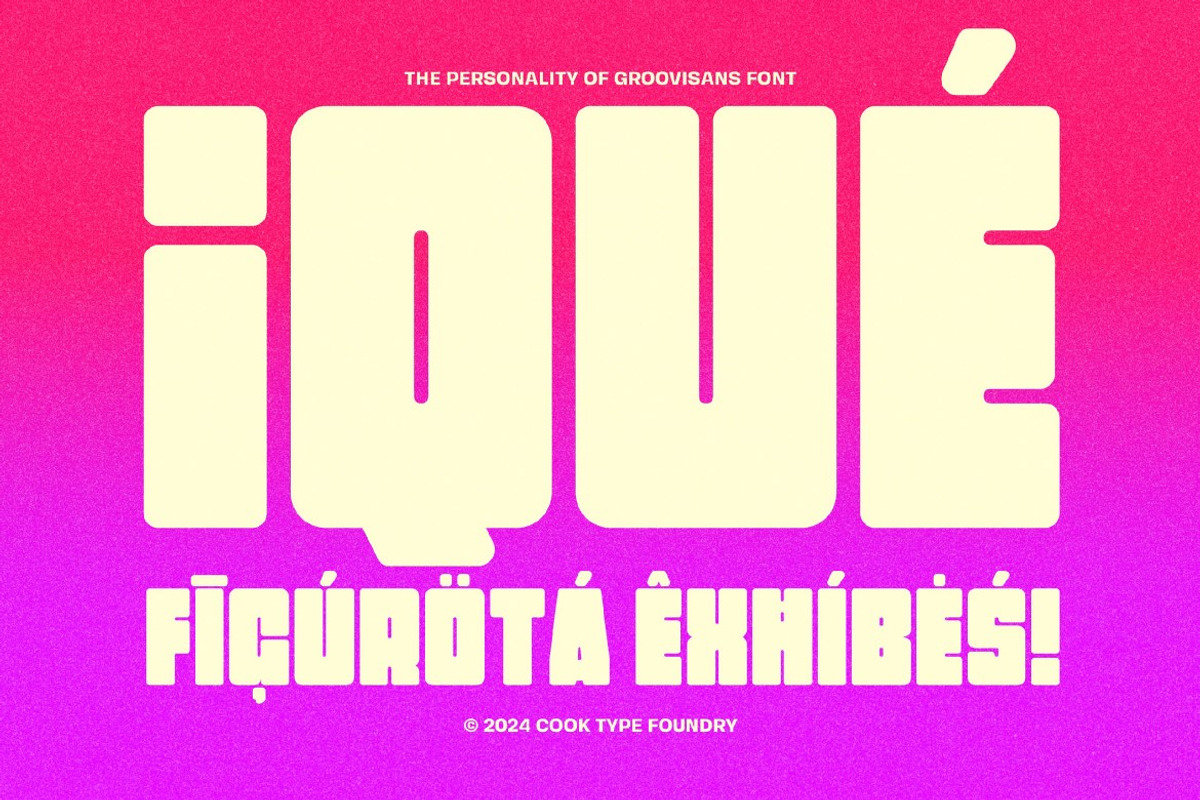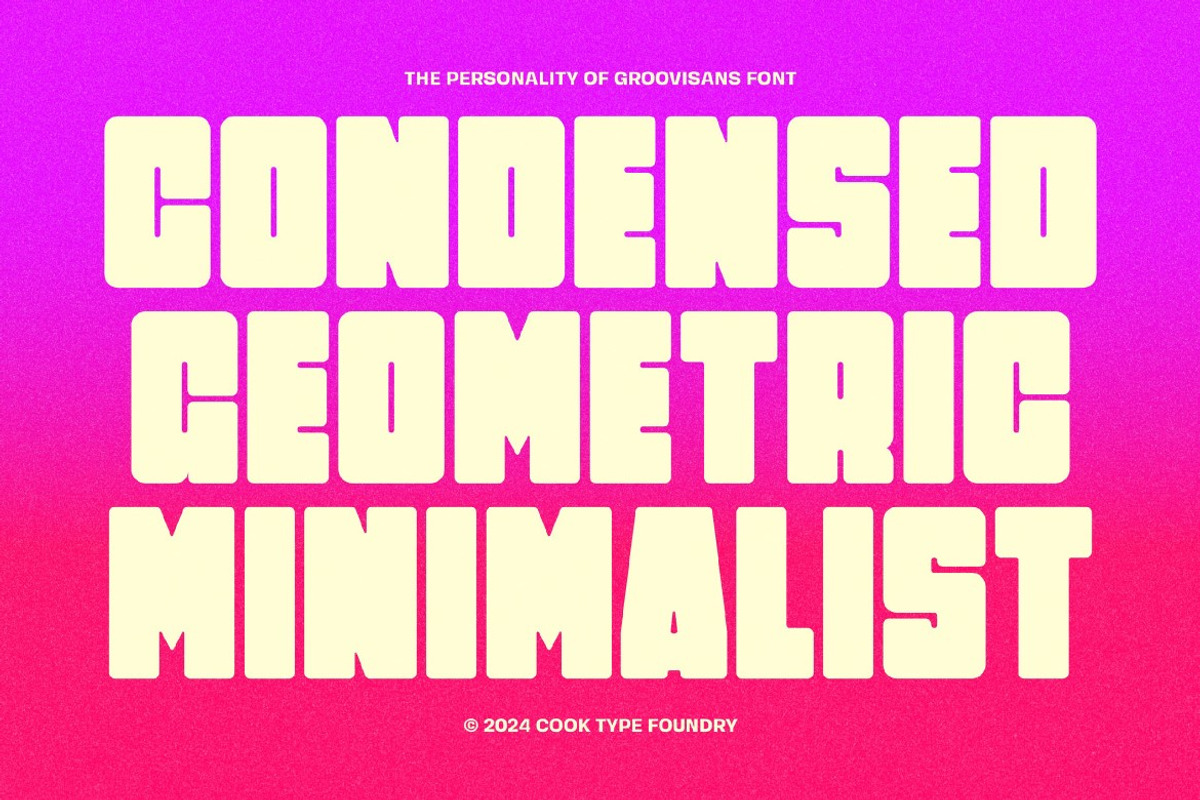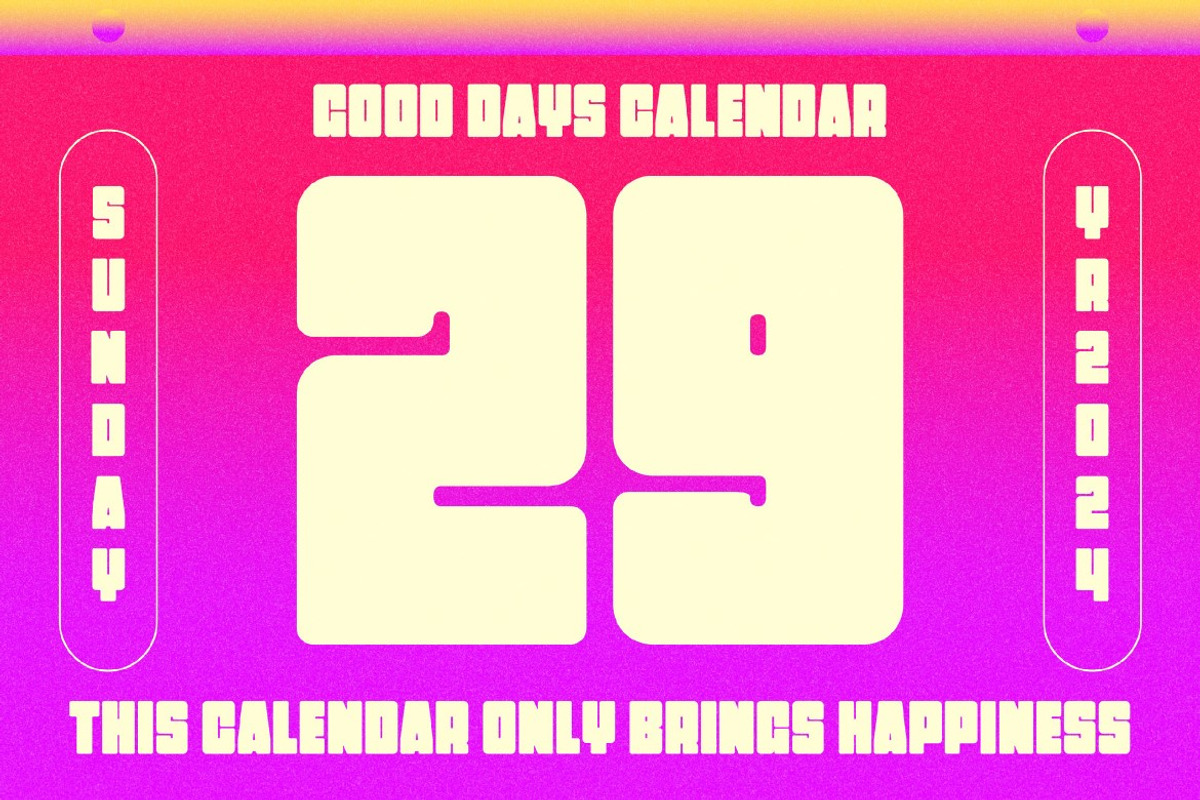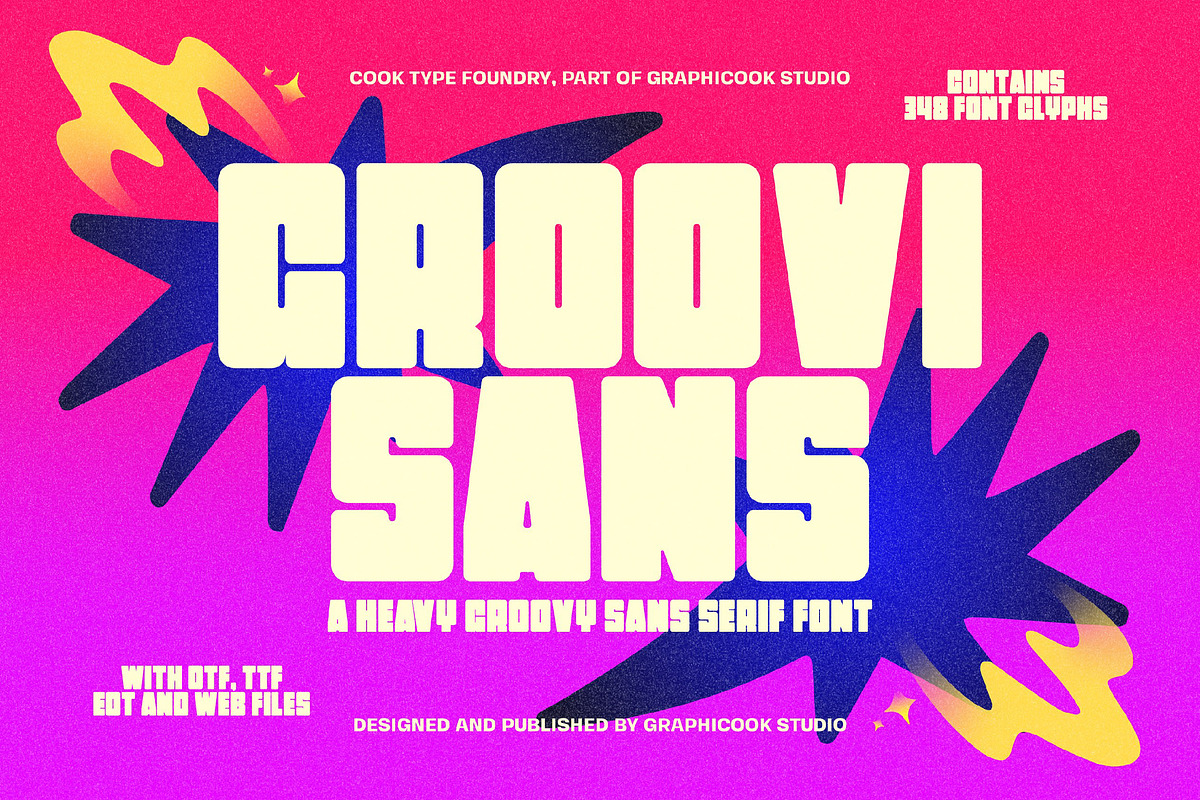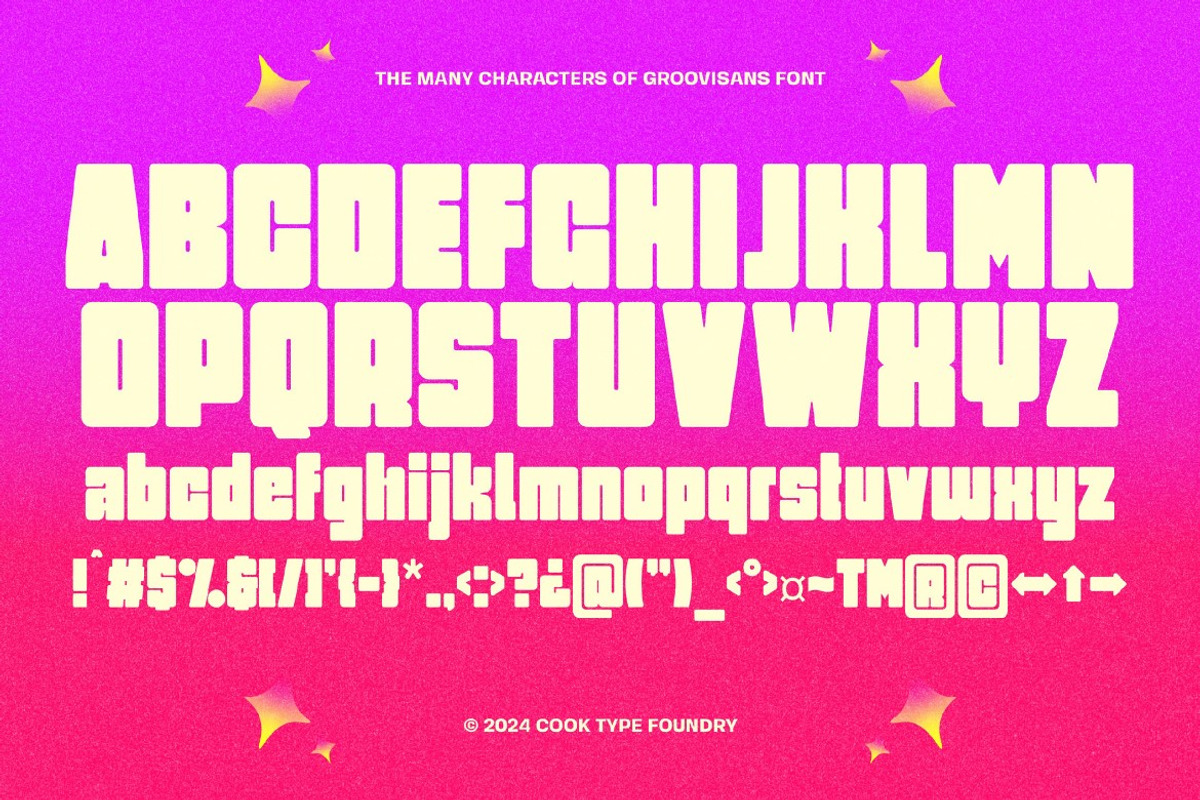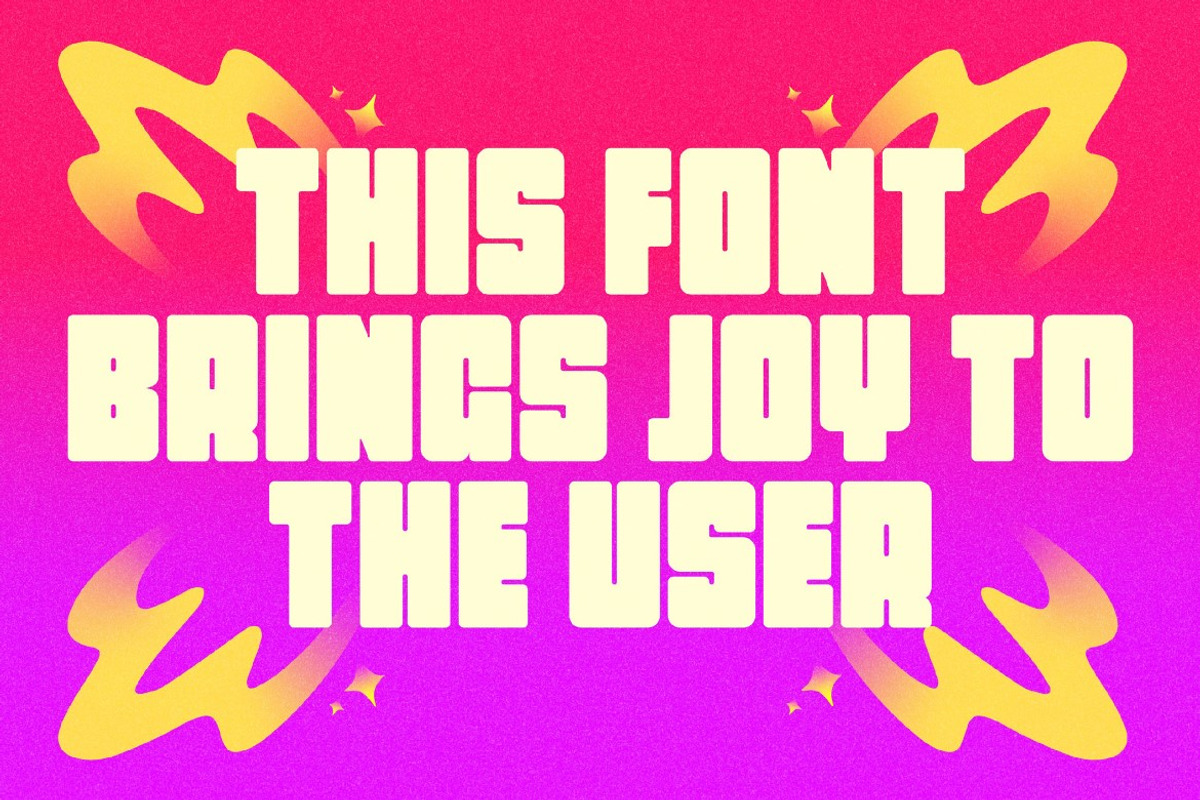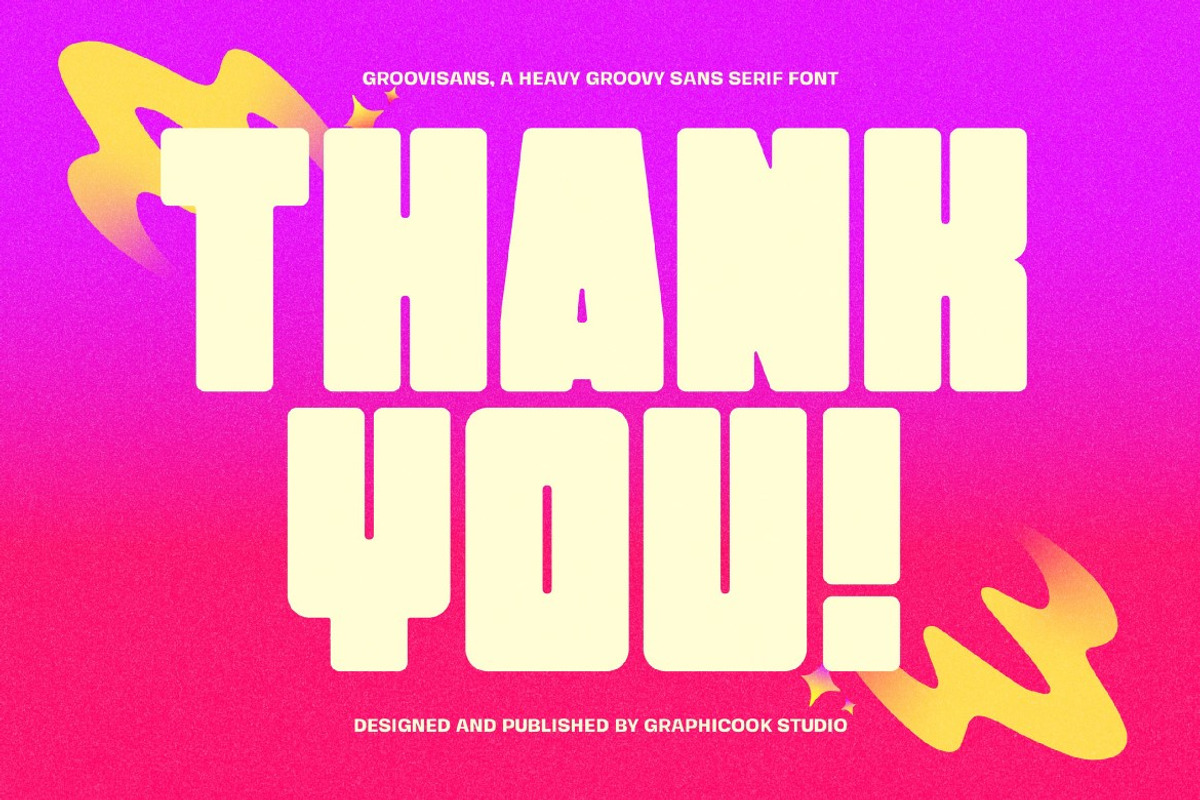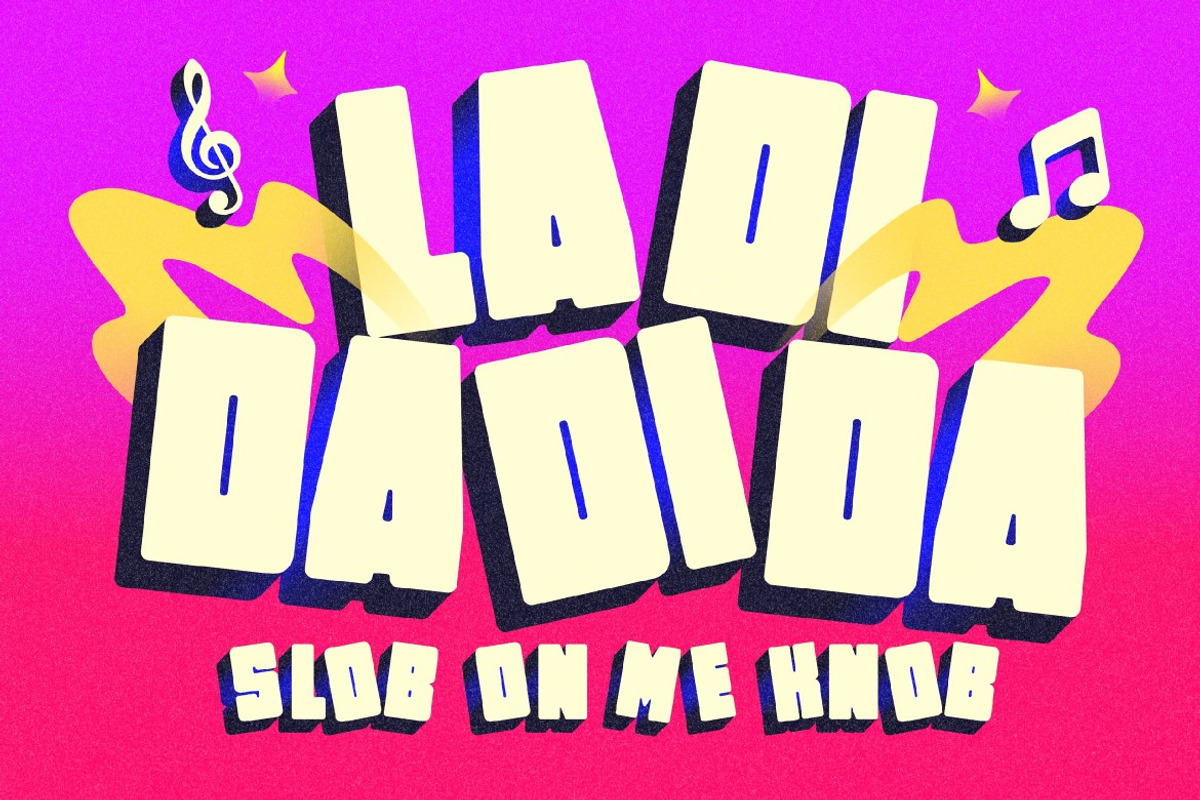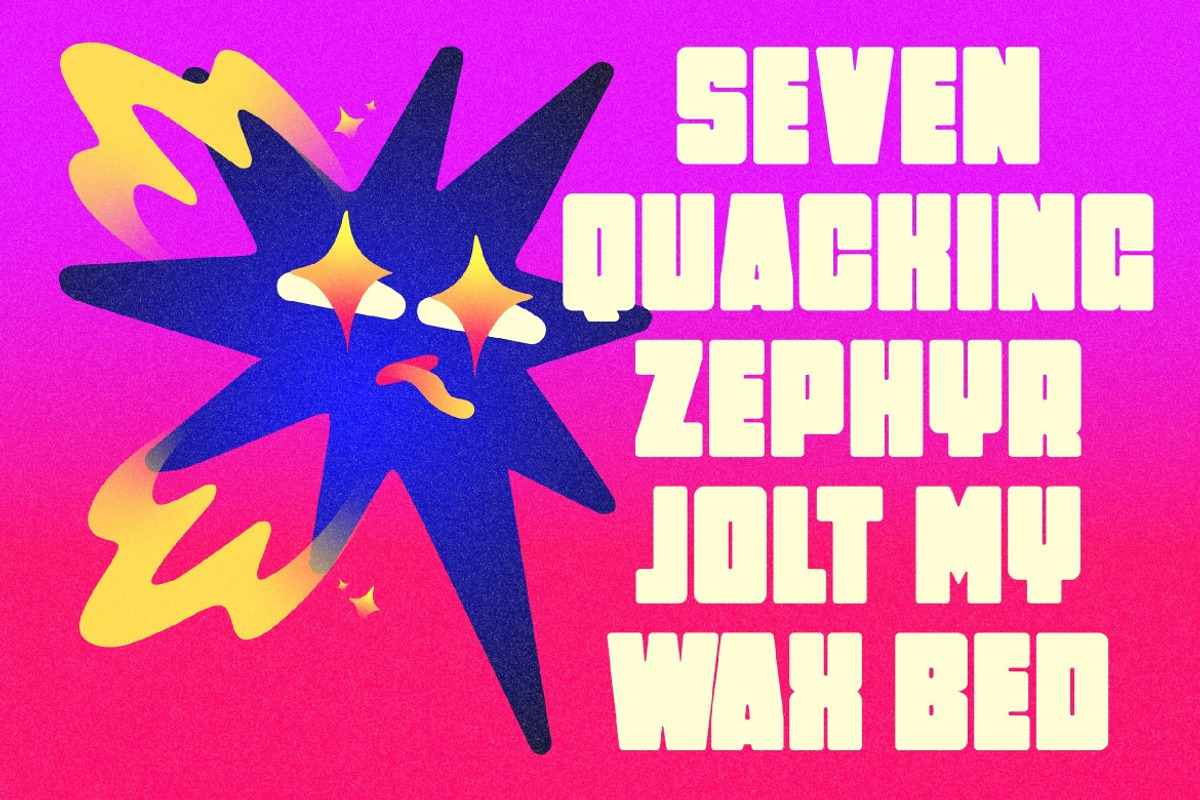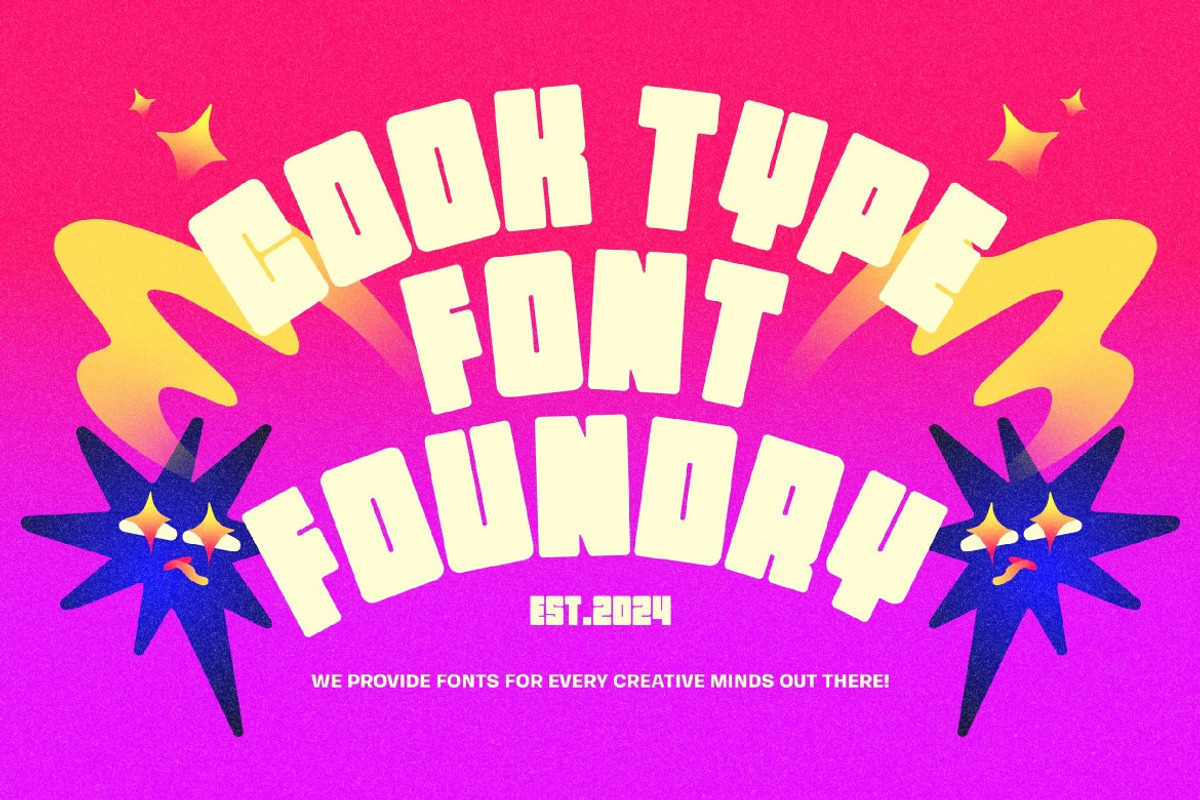
Groovisans
Groovisans blends groovy style with a rounded sans serif design. Perfect for event branding, editorial pieces, magazines, and more.
Groovisans is perfect for headlines, logotypes, magazines, packaging, quotes, movies, games, cover albums, book covers, and flyers, it's a perfect solution for creating eye-catching designs that stand out in any context.